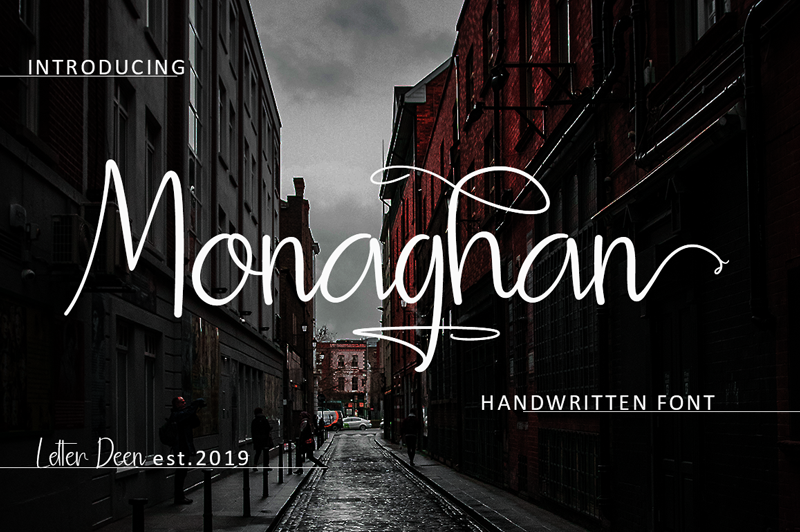
Preview and download Monaghan Font. Created by Muhammad Wahyudin in Script Handwritten styles with Free for personal use license.
Font name: | Monaghan |
Author: | Muhammad Wahyudin |
Monaghan is a handwritten font, with sweet touches and beautiful curves on each letter. This font is great for your next creative project. NOTE: This demo font is for PERSONAL USE ONLY! But any donation are very appreciated. Paypal account for donation : https://www.paypal.me/wahyudin1886 Link to purchase commercial license : https://graphicriver.net/item/monaghan/24416702 Please visit our store for more great fonts : https://thehungryjpeg.com/store/letter-deen Thank you. |